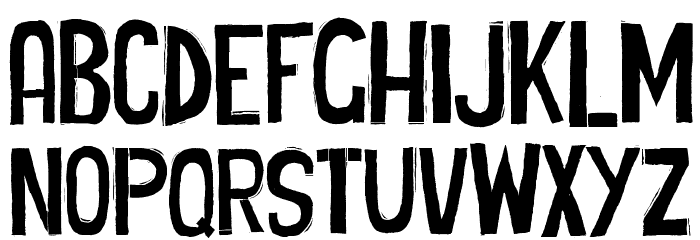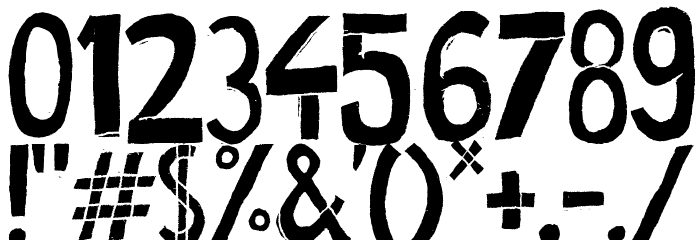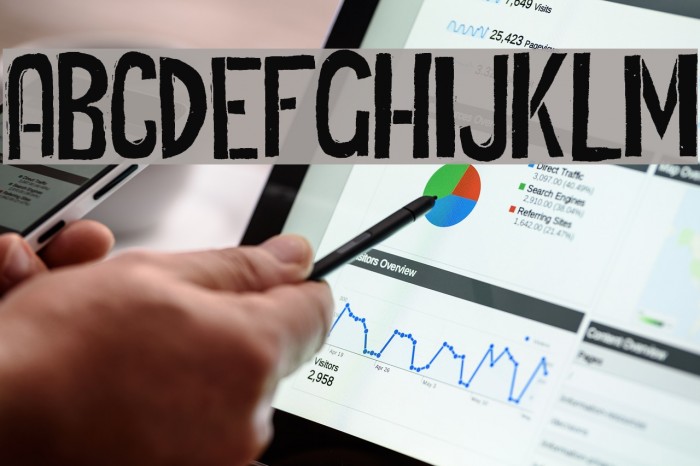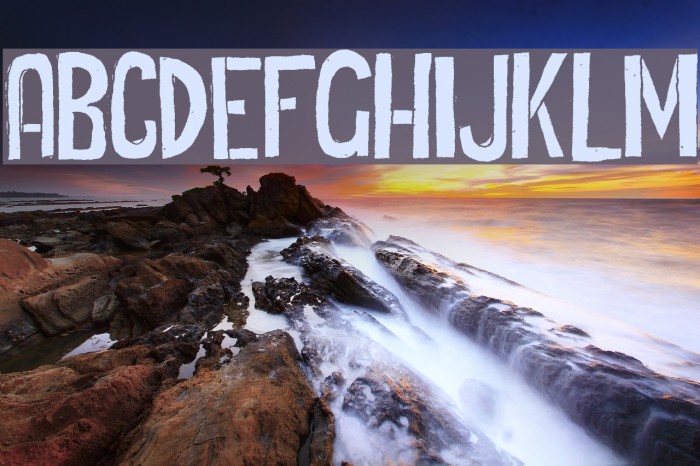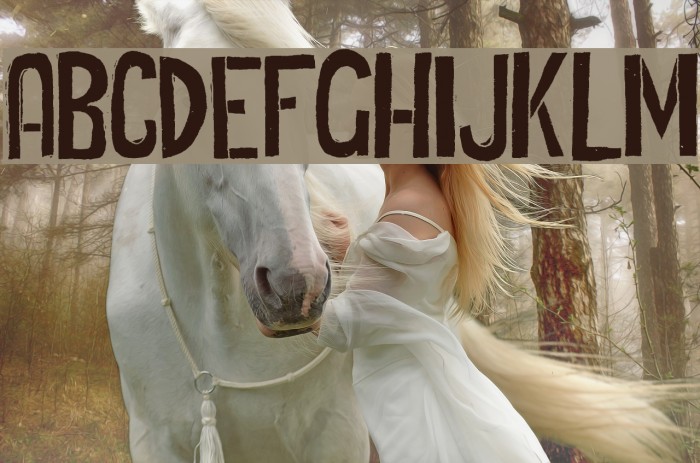
Cheap Potatoes Black Thin Font
This font exhibits a bold and distressed style, characterized by its rough, hand-drawn appearance. The uppercase letters are prominent and slightly irregular, giving a sense of movement and energy. The numerals and special characters maintain this rugged aesthetic, with uneven edges and varying line thicknesses. The overall look is reminiscent of vintage posters or DIY printmaking, making it ideal for projects that require a bold, eye-catching statement. Its unique style can add a touch of personality and creativity to any design.
A bold, distressed font with a hand-drawn, vintage aesthetic.
- Proposed Projects: Ideal for posters, album covers, branding, and any design needing a bold, artistic touch.
- Overall Style: Vintage, Artistic